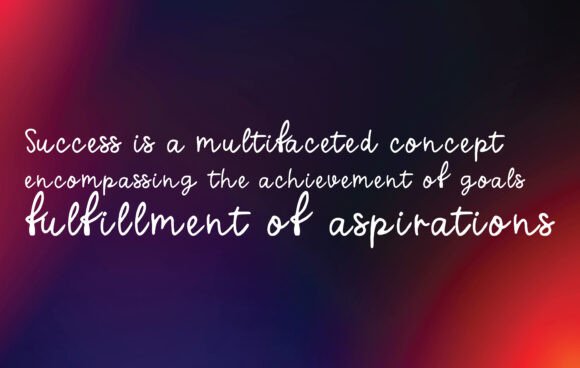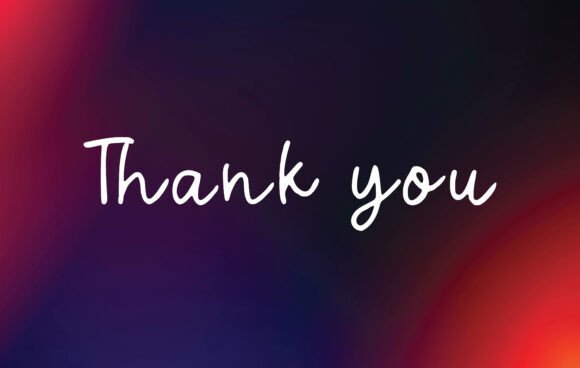
Introducing Esben Font: Elevate Your Creative Projects with a Lovely Handwritten Style
Are you on the lookout for a font that can add a personal touch to your designs? Look no further than Esben Font, a beautiful handwritten font that is sure to take your creative ideas to the next level. With its unique and elegant style, Esben is the perfect choice for designers, crafters, and anyone looking to add a touch of sophistication to their projects.
The Characteristics of Esben Font
Esben Font is a lovely and beautiful handwritten font that boasts a range of characteristics that make it stand out from the crowd. Its flowing lines, delicate curves, and subtle imperfections give it a human touch that is sure to resonate with your audience. Whether you’re looking to create eye-catching logos, branding materials, or quotes, Esben Font is the perfect choice.
The Benefits of Using Esben Font
So why choose Esben Font for your next project? Here are just a few benefits of using this amazing font:
- Elegant and Sophisticated: Esben Font has an elegant and sophisticated style that is sure to elevate your designs and give them a professional finish.
- Versatile: Whether you’re creating logos, branding materials, or quotes, Esben Font is versatile enough to be used across a range of applications.
- Easy to Read: Despite its elegant style, Esben Font is easy to read, making it perfect for use in body text as well as headlines.
- Unique: With its unique and handwritten style, Esben Font is sure to help your designs stand out from the crowd.
How to Use Esben Font in Your Designs
Using Esben Font in your designs is easy. Here are a few tips to get you started:
- Pair it with Other Fonts: Esben Font pairs well with other fonts, so don’t be afraid to experiment with different combinations to find the perfect look for your design.
- Use it for Headlines and Titles: Esben Font is perfect for use in headlines and titles, where its elegant style can really shine.
- Add a Personal Touch: Use Esben Font to add a personal touch to your designs, whether you’re creating logos, branding materials, or quotes.
Design Inspiration with Esben Font
Esben Font is a versatile font that can be used in a range of design applications. Here are a few ideas to get you started:
- Logos: Use Esben Font to create elegant and sophisticated logos that really stand out.
- Branding: Esben Font is perfect for use in branding materials, such as business cards, letterheads, and packaging.
- Quotes: Add a touch of elegance to your quotes with Esben Font, which is perfect for use in social media graphics, posters, and flyers.
In conclusion, Esben Font is a beautiful handwritten font that is sure to elevate your creative projects to the next level. With its elegant style, versatility, and ease of use, Esben Font is the perfect choice for designers, crafters, and anyone looking to add a touch of sophistication to their designs. So why not give Esben Font a try today and see the difference it can make?
Whether you’re a seasoned designer or just starting out, Esben Font is a must-have font that is sure to inspire your creativity and help you create stunning designs that really stand out.